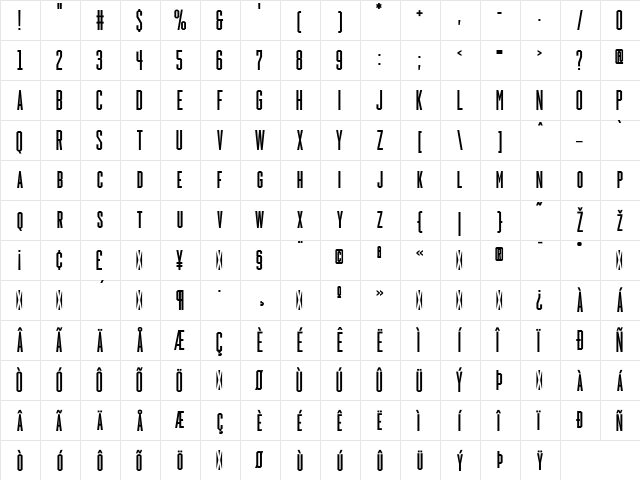
HeraldGothic Regular Font Preview
HeraldGothic Regular
HeraldGothic Regular Font Details
| Foundry | Matthew Butterick. Designed by Matthew Butterick. Produced by The Font Bureau, Inc |
Design Context for HeraldGothic Typeface
HeraldGothic takes a clean, functional approach — its unadorned letterforms prioritise legibility and work reliably across screen and print environments.
Font Pairing: Works well alongside a characterful serif or display font that can carry the expressive load while HeraldGothic handles the functional copy.
Pro Tip: Pair HeraldGothic with a display or serif font for headlines — its neutral character makes it an excellent supporting player in complex typographic systems.